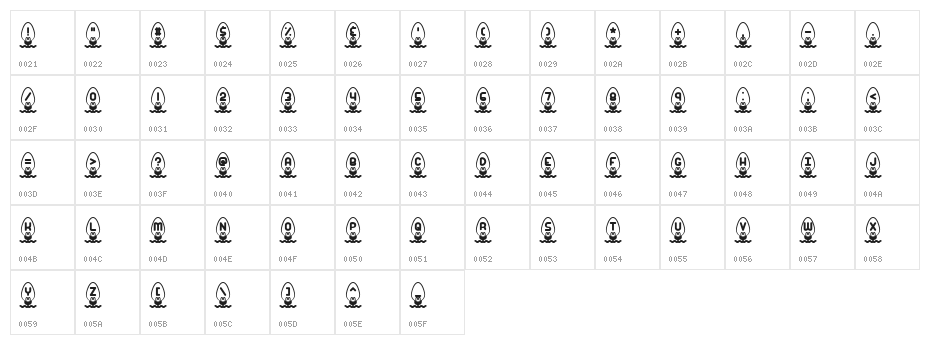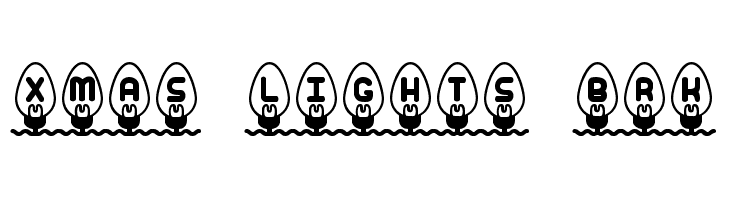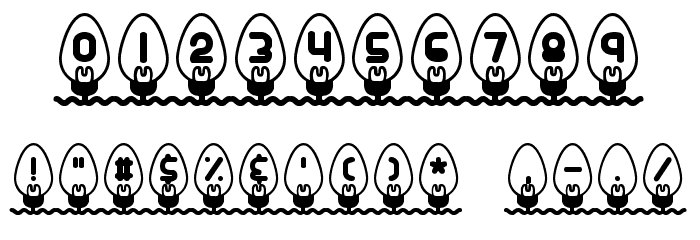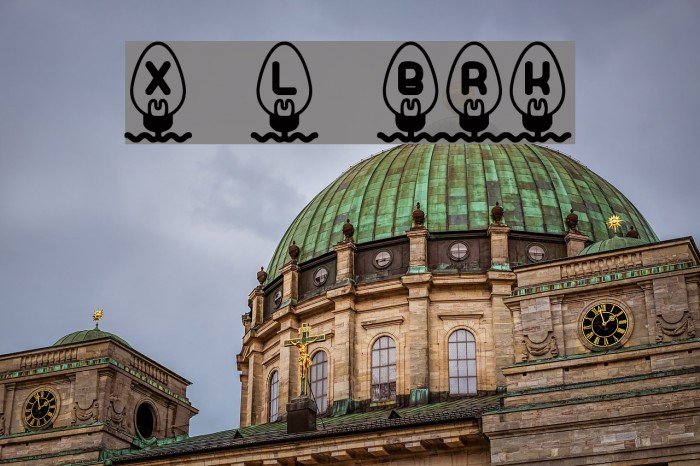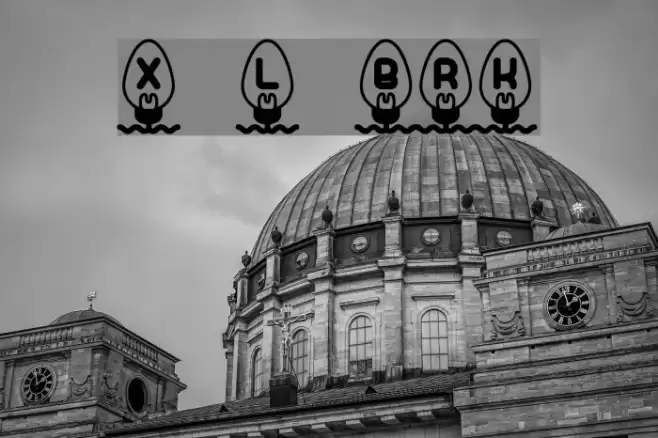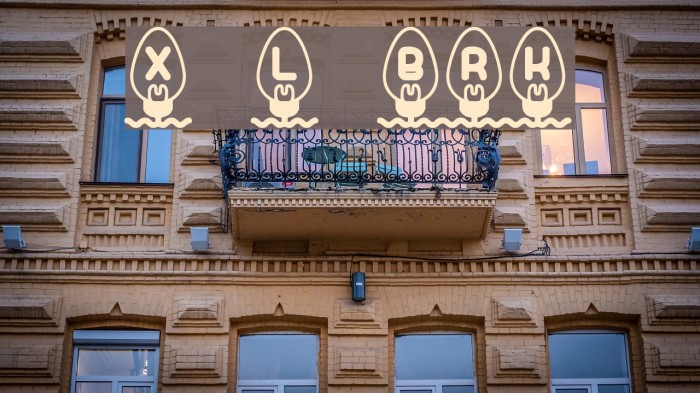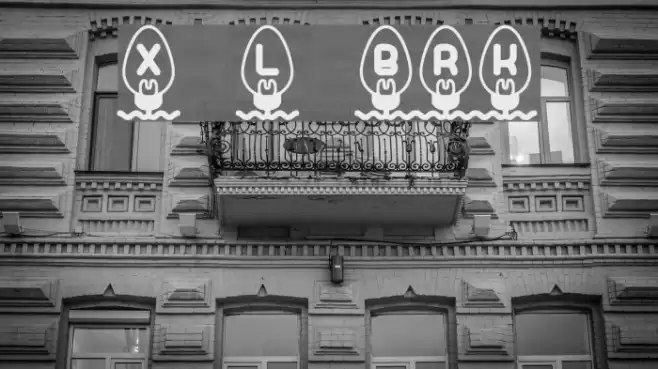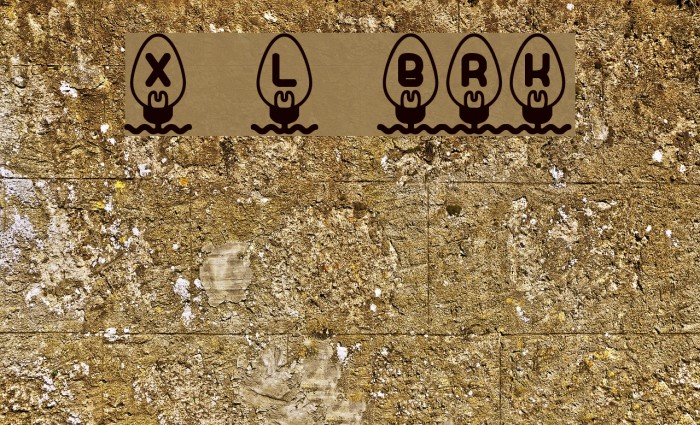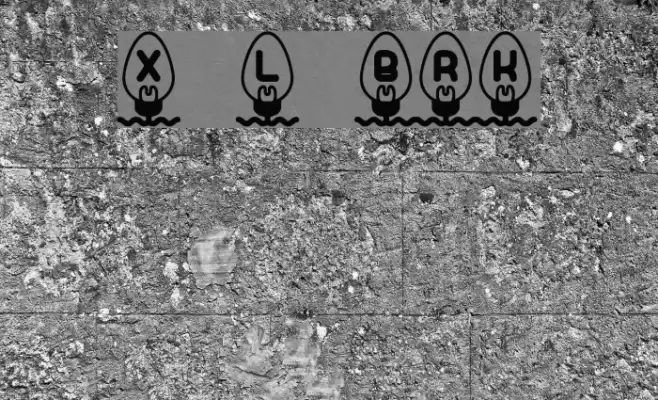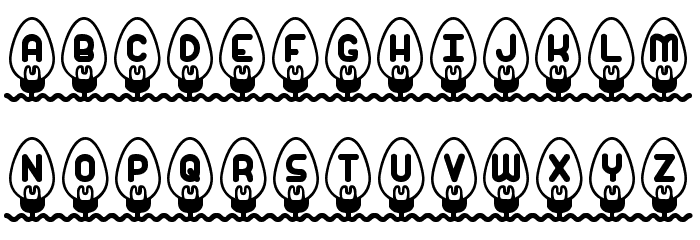
Xmas Lights BRK Font
Xmas Lights BRK Description
This playful and festive font features characters enclosed within bulb-like shapes, reminiscent of holiday string lights. Each letter and number is encapsulated in a rounded, egg-shaped bulb with a base that mimics a light socket. The characters themselves are bold and sans-serif, providing a clear and legible appearance despite the decorative encasement. The overall design is whimsical and captures the essence of holiday cheer, making it ideal for festive occasions. The consistent use of the bulb motif across all characters adds a cohesive and thematic touch, perfect for seasonal projects.
| Proposed Projects | Holiday cards, festive banners, seasonal advertisements, party invitations. |